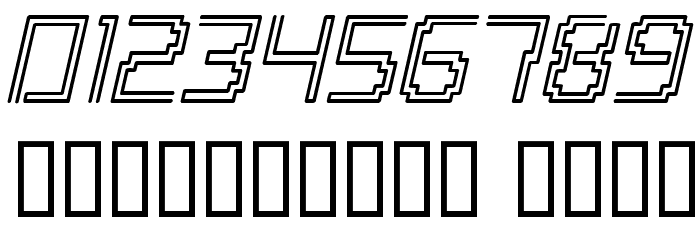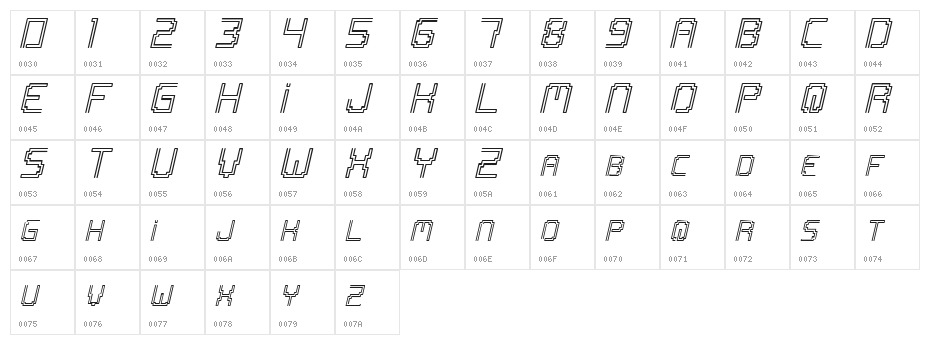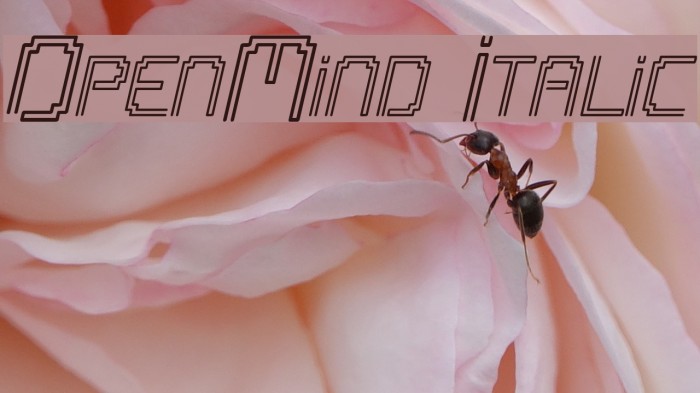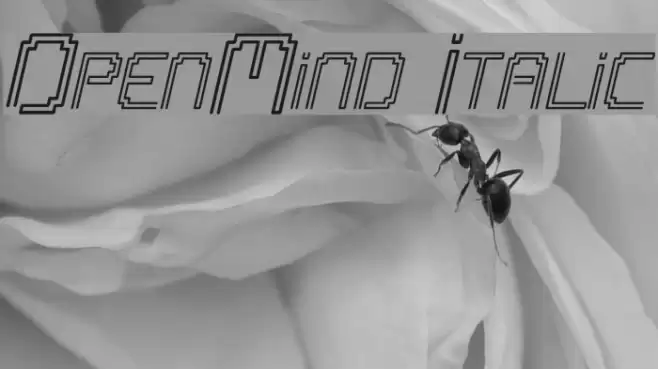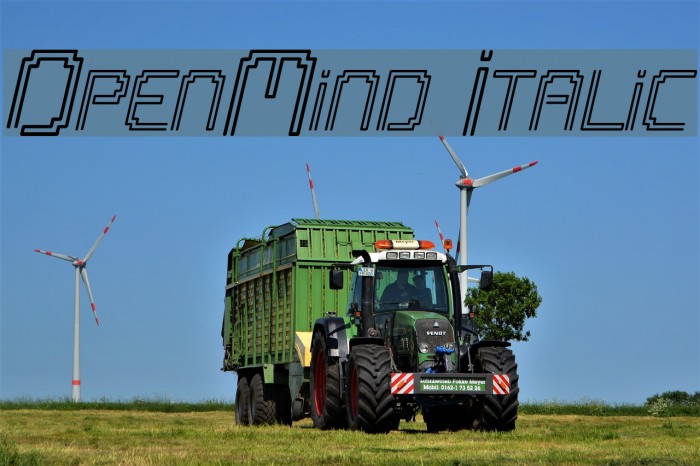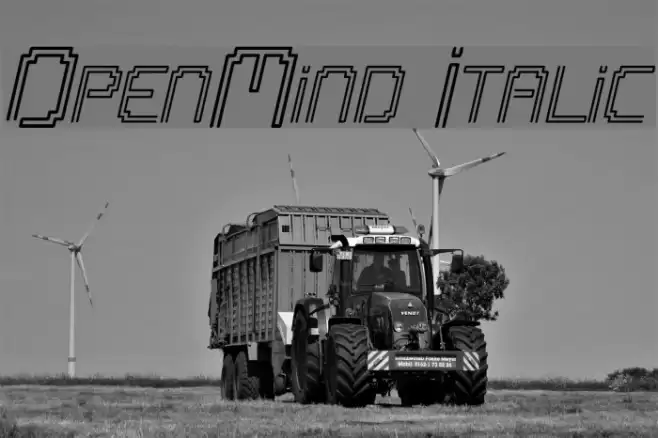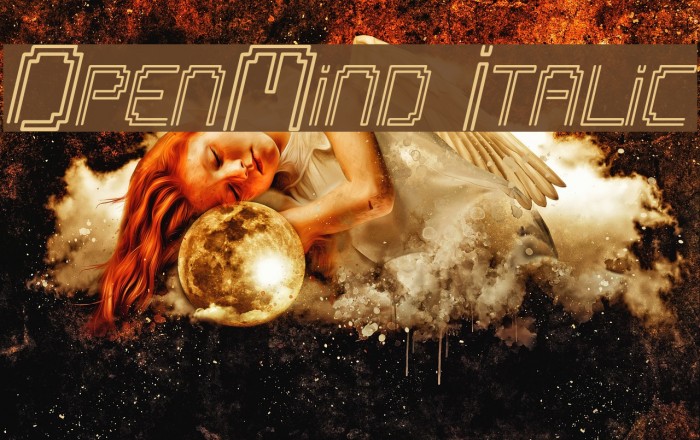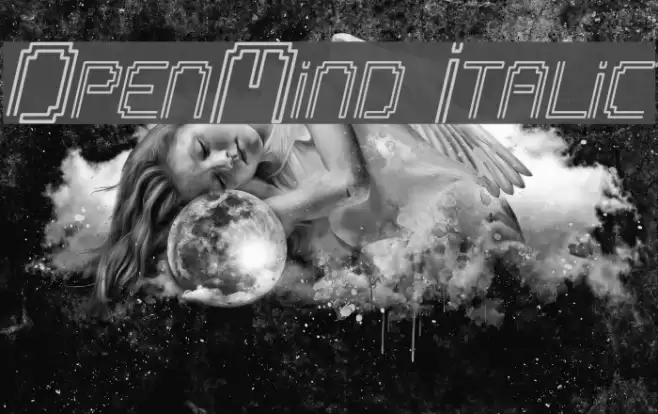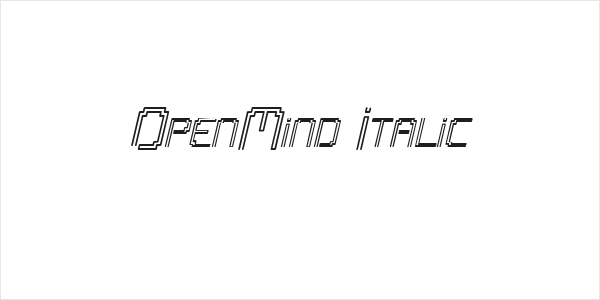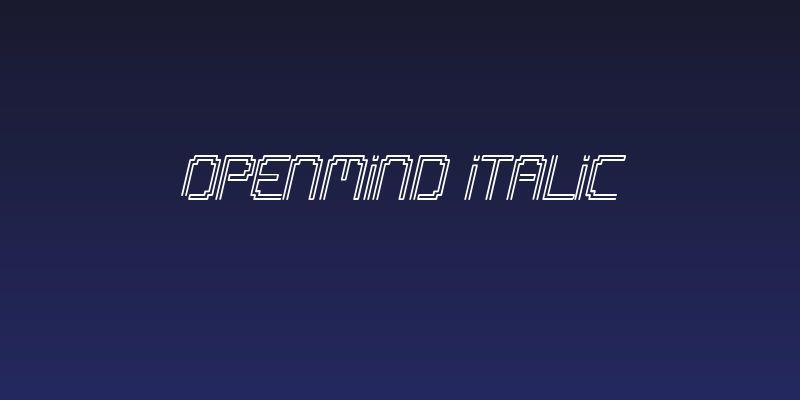
OpenMind Italic Font
OpenMind Italic Description
This font features a unique, futuristic design with a distinct geometric structure. Each character is outlined with a double-line effect, creating a three-dimensional appearance. The letters are italicized, adding a dynamic and forward-leaning aspect to the overall style. The uppercase and lowercase letters maintain a consistent height, contributing to a uniform look. The numerals and special characters follow the same design principles, ensuring cohesion across all elements. The font's modern and digital aesthetic makes it suitable for projects that require a tech-savvy or avant-garde feel.
| Use Case | Logos, Headlines, Digital interfaces |
| Proposed Projects | Ideal for tech-related branding, digital art, video game interfaces, and modern advertising campaigns. |